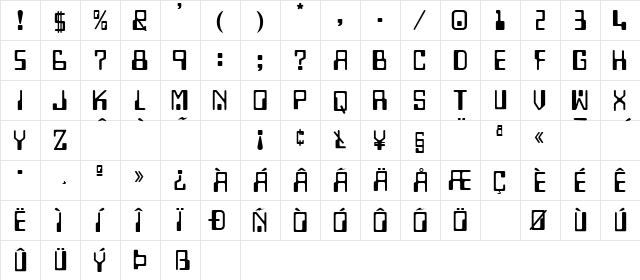
Mycalc Regular Font Preview
Mycalc Regular
Mycalc Regular Font Details
Design Context for Mycalc Typeface
Mycalc takes a measured approach to typography — its balanced proportions and neutral character make it a reliable workhorse for both digital and print work.